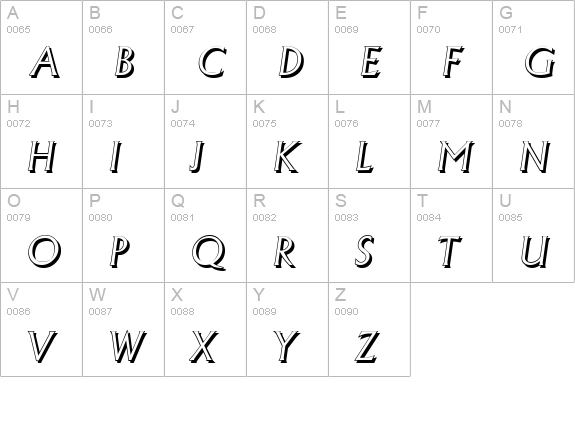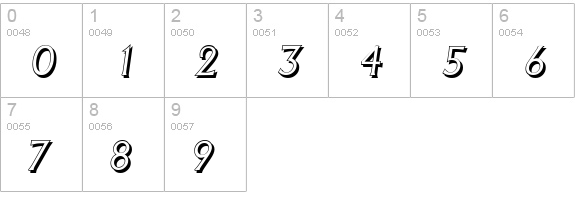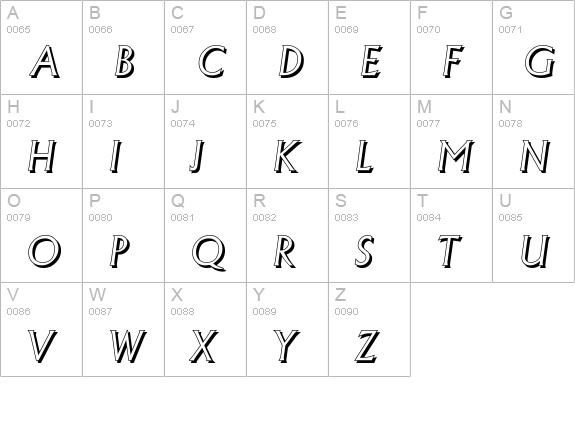
AdelonShadow-Light-Italic is a refined, elegant, italic variant in the AdelonShadow typeface family \xE2\x80\x94 well suited to elegant body text, refined sub-headings, and luxury branding.
AdelonShadow-Light-Italic is a sophisticated and elegant font that exudes a sense of grace and charm. Its delicate italic style adds a touch of sophistication to any design, making it perfect for projects that require a refined and polished look. This font features subtle shadow effects that create a sense of depth and dimension, adding a unique flair to your text. The light weight of the font gives it an airy and graceful appearance, making it ideal for use in titles, headers, and other prominent text elements. AdelonShadow-Light-Italic is not only visually appealing but also incredibly versatile, suitable for a wide range of design projects including branding, invitations, packaging, and more. Its timeless style ensures that it will remain a classic choice for years to come. Best of all, AdelonShadow-Light-Italic is available for free download at FontsMarket.com, making it accessible to designers, artists, and creatives looking to add a touch of elegance to their work without breaking the bank. Don't miss out on this stunning font - download it today and elevate your designs to new heights!